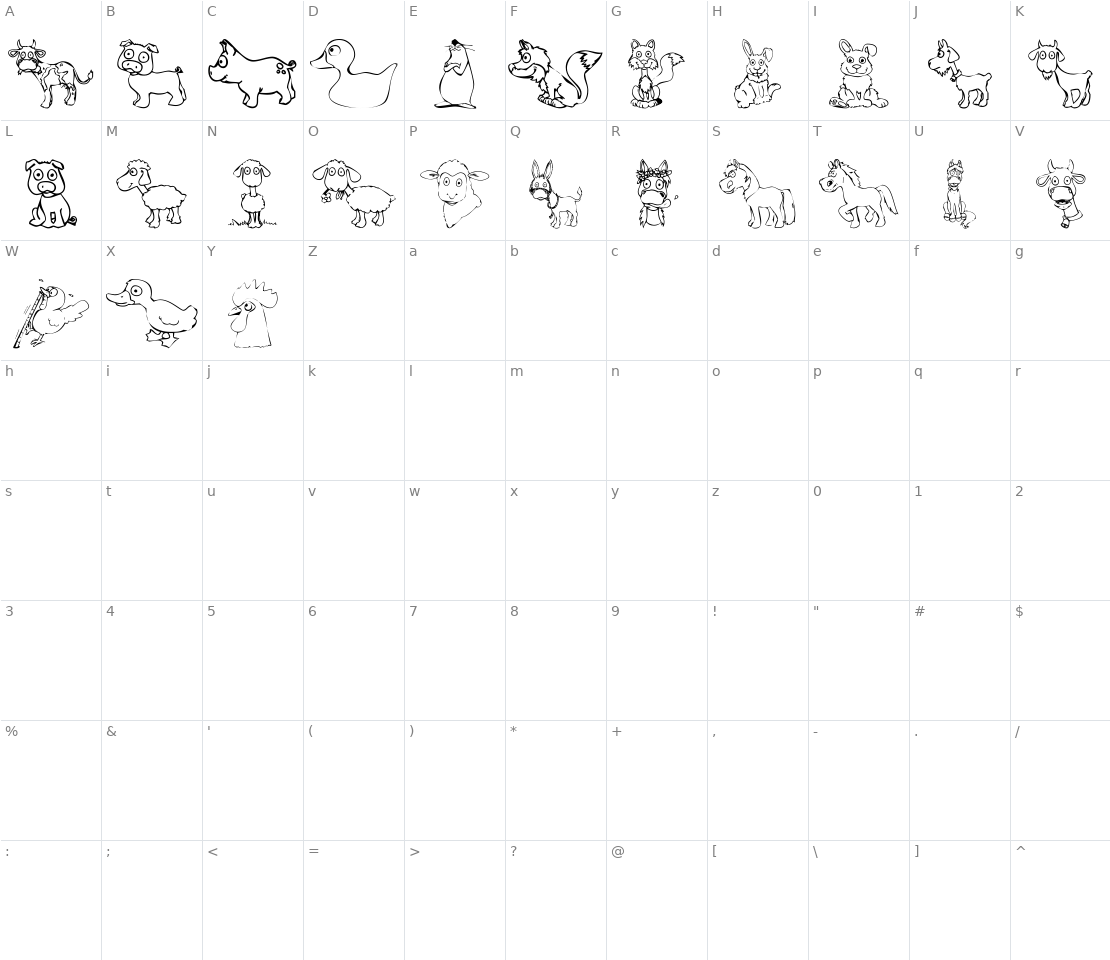
KR Barnyard Scraps
KR Barnyard Scraps is a dingbat font from Kat's Fun Fonts filled with hand-drawn farm animal illustrations and barnyard icons. The characters have a cute, cartoonish quality with a slightly wobbly line that keeps them feeling personal and sketched rather than clip-art sterile. Useful for children's projects, invitations, classroom materials, or anywhere a few whimsical chickens and cows might come in handy.